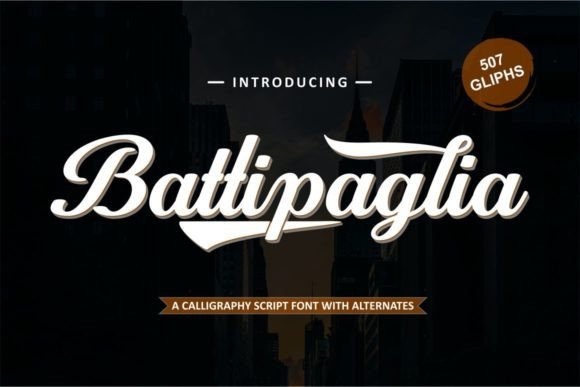
Battipaglia Font: Elevate Your Designs with Elegance and Sophistication
In the world of typography, a font can make or break a design. When it comes to creating visually stunning projects, the right font can elevate your work from ordinary to extraordinary. Introducing Battipaglia, a stylish script font that embodies elegance and sophistication. With its balanced and varied strokes, Battipaglia is the perfect addition to any designer’s toolkit.
The Beauty of Battipaglia
Battipaglia boasts a unique blend of refinement and luxury, making it an ideal choice for designers seeking to add a touch of class to their projects. This beautiful script font features:
- Elegant and Classy Look: Battipaglia’s sophisticated design makes it perfect for high-end branding, packaging, and editorial projects.
- Balanced and Varied Strokes: The font’s carefully crafted strokes are neither too thin nor too thick, ensuring a harmonious balance that enhances the overall aesthetic of your designs.
- PUA Encoding: With PUA (Private Use Area) encoding, you can easily access a wide range of glyphs and ligatures, giving you the creative freedom to experiment with different typography styles.
What Makes Battipaglia Special?
Battipaglia’s unique characteristics make it an exceptional choice for designers and crafters. Here are some of the key features that set it apart:
- Versatility: Battipaglia’s adaptability makes it suitable for a wide range of projects, from wedding stationery and branding to packaging and digital designs.
- Readability: The font’s clear and legible design ensures that your message is conveyed effectively, making it perfect for body text and headings.
- Uniqueness: Battipaglia’s distinctive style will help your designs stand out from the crowd, giving you a competitive edge in the world of design.
Use Cases for Battipaglia
Battipaglia’s versatility makes it an excellent choice for various design projects. Here are some inspiring use cases:
- Wedding Stationery: Add a touch of elegance to wedding invitations, save-the-date cards, and other stationery with Battipaglia’s sophisticated script.
- Branding and Packaging: Elevate your brand’s visual identity with Battipaglia’s luxurious and refined design, perfect for high-end product packaging and branding materials.
- Editorial Design: Use Battipaglia to add a touch of sophistication to magazine layouts, book covers, and other editorial projects.
- Digital Design: Incorporate Battipaglia into your digital designs, such as website headers, social media graphics, and email marketing campaigns.
Tips for Using Battipaglia
To get the most out of Battipaglia, here are some expert tips:
- Experiment with Ligatures: Take advantage of Battipaglia’s PUA encoding to explore different ligatures and glyphs, adding a unique touch to your designs.
- Play with Font Sizes: Use Battipaglia in various font sizes to create visual hierarchy and add depth to your designs.
- Pair with Complementary Fonts: Combine Battipaglia with complementary fonts to create a harmonious typography system.
Battipaglia is a stunning script font that offers a perfect blend of elegance, sophistication, and versatility. With its PUA encoding, balanced strokes, and refined design, it’s an excellent addition to any designer’s collection. Whether you’re working on wedding stationery, branding, packaging, or digital designs, Battipaglia is sure to elevate your projects to new heights. So why wait? Get creative with Battipaglia today and experience the power of beautiful typography!